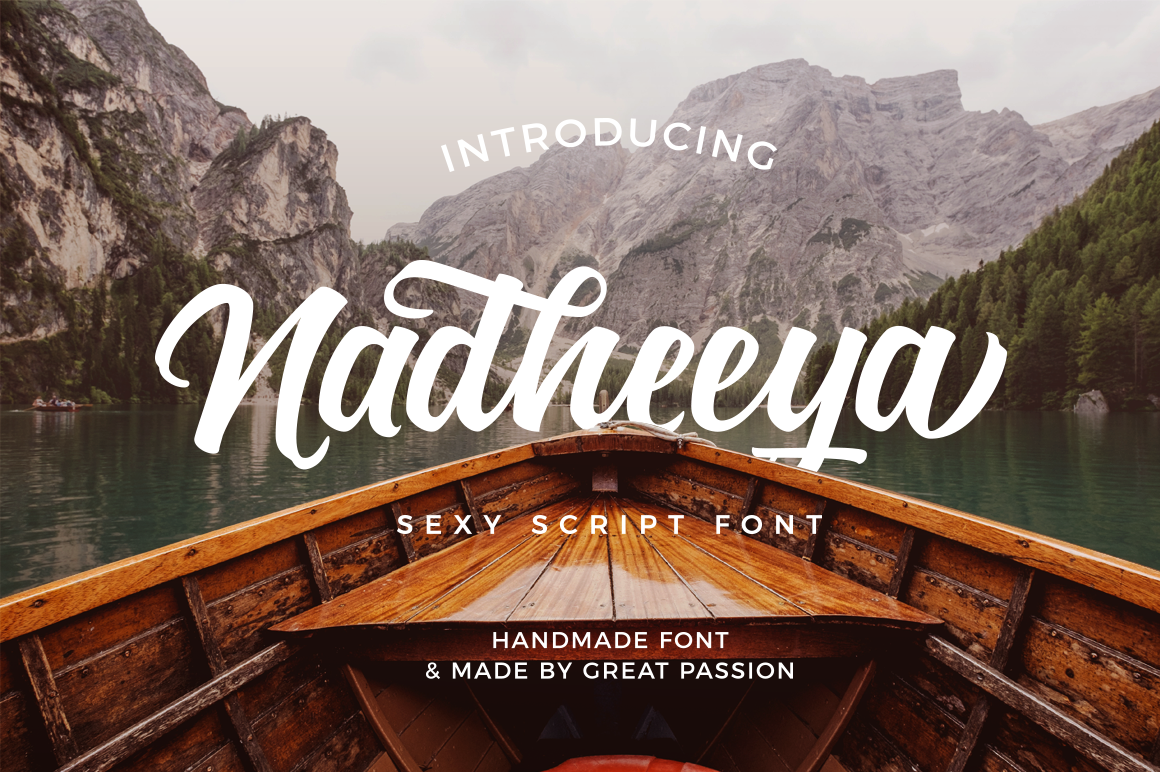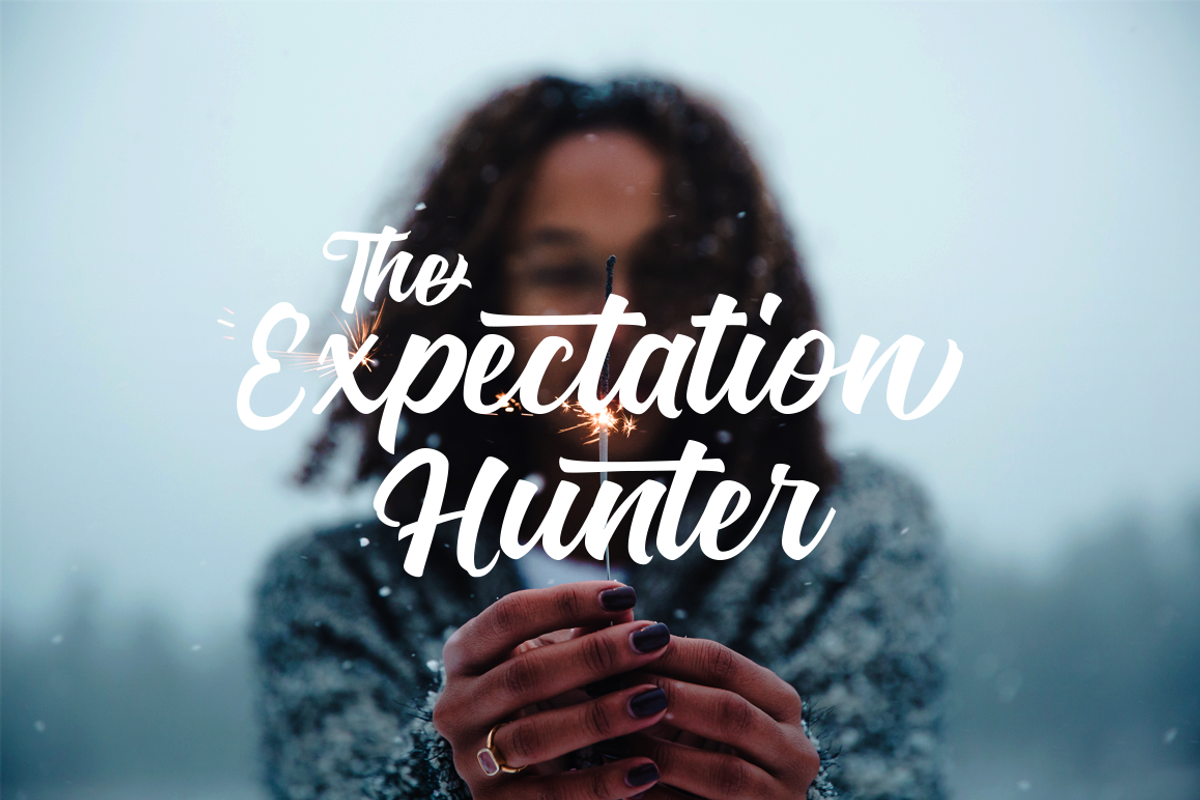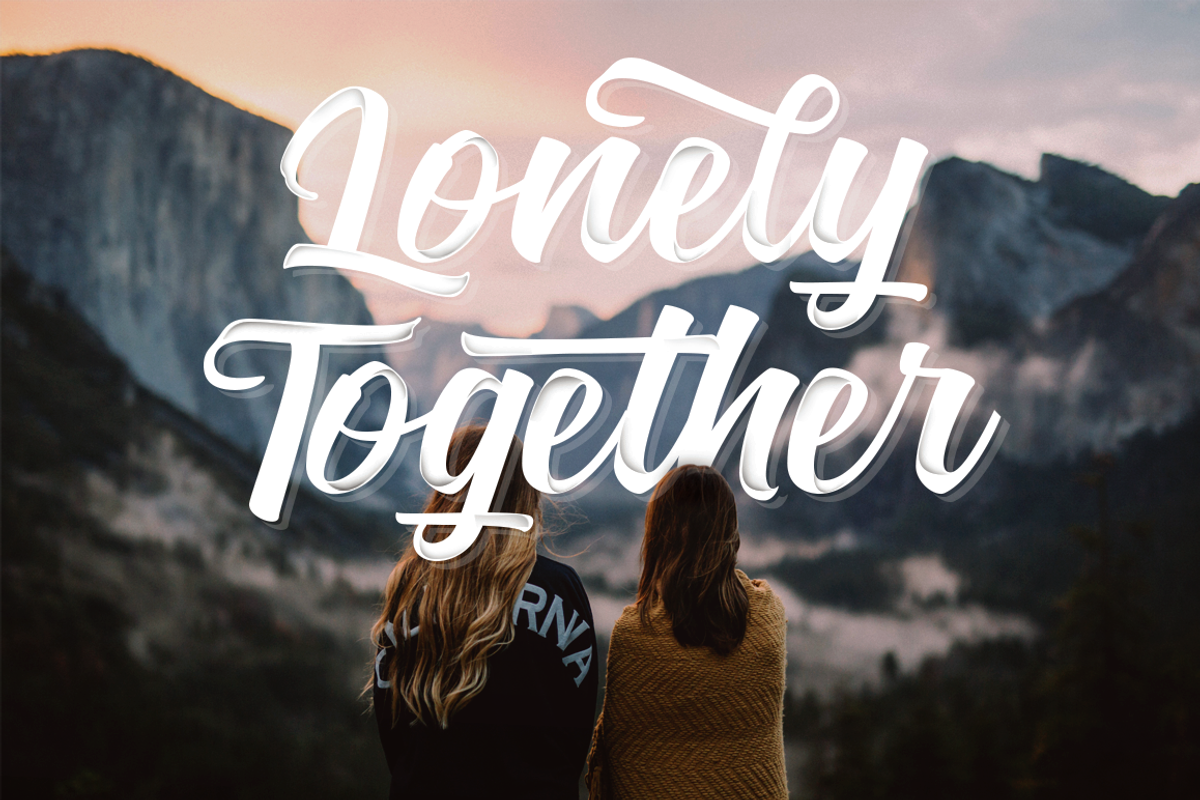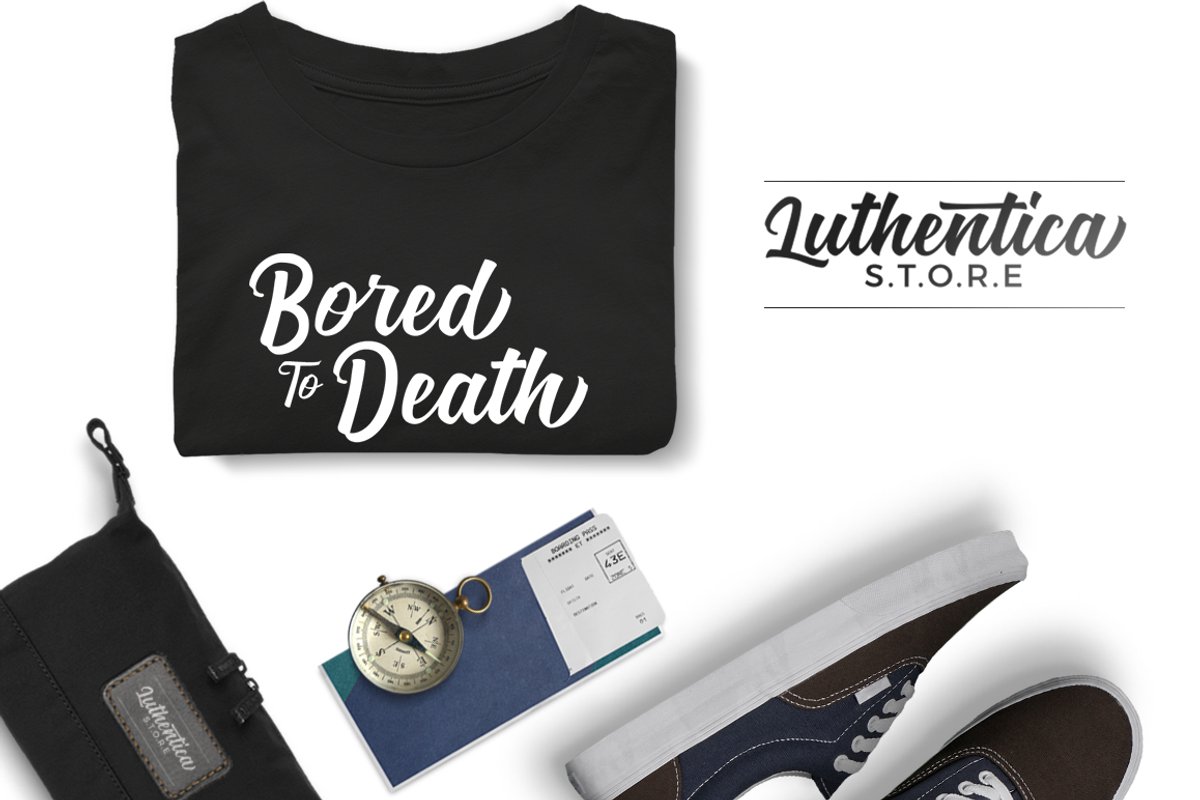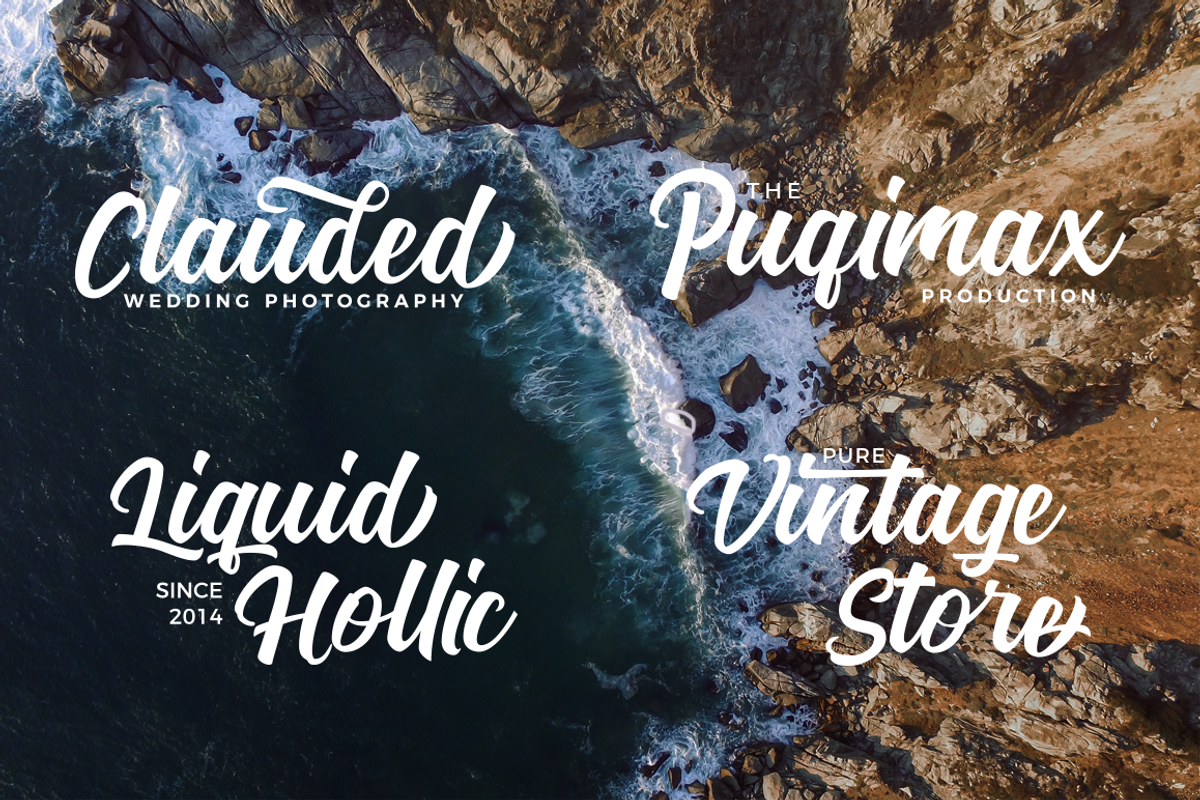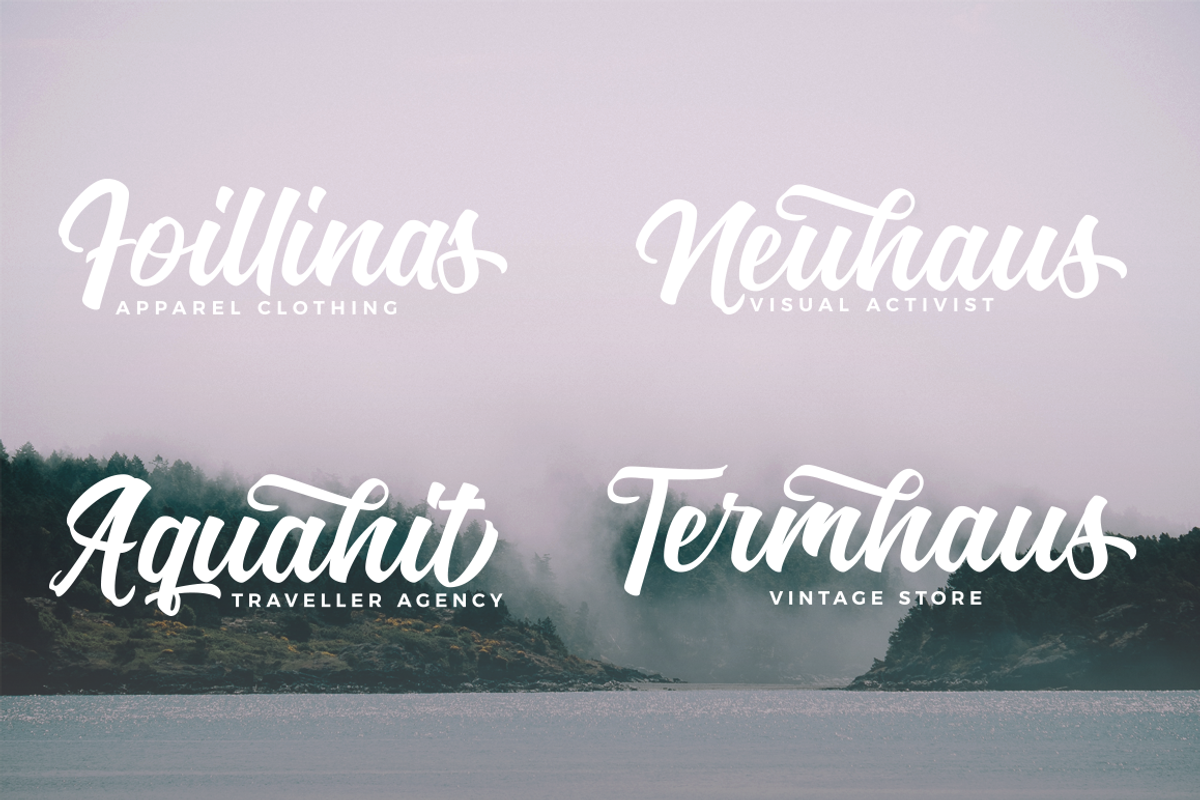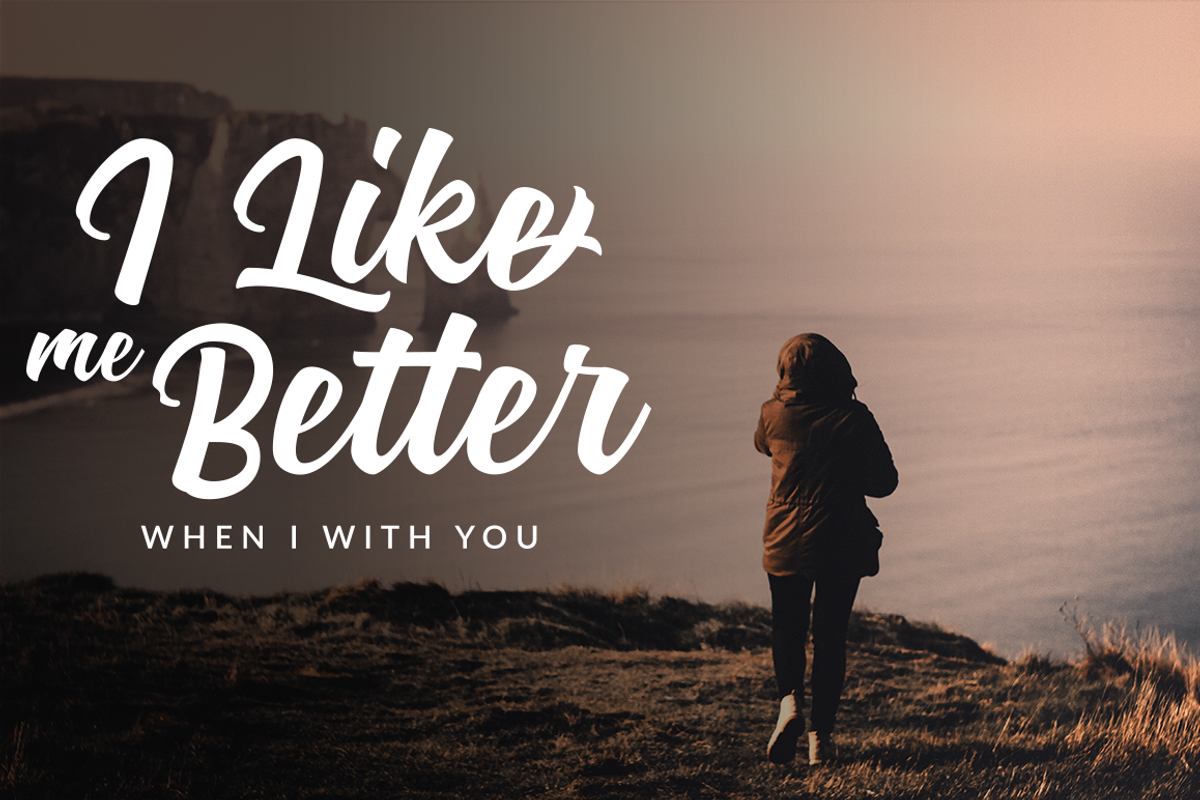
Nadheeya Script Font
Nadheeya Script
Nadheeya Script come with Uppercase, Lowercase, Punctuation, Number, Stylistic Set, Alternates,etc.
This Font is suitable to use for any project such as Logotype, Letterhead, Poster, Apparel Design, Label and etc.
This Sexy Script made by Great passion and Inspired by my Beloved Women, From her eyes until her heart, I Create this font From her Smile, her tears, her Characteristic until her personality.